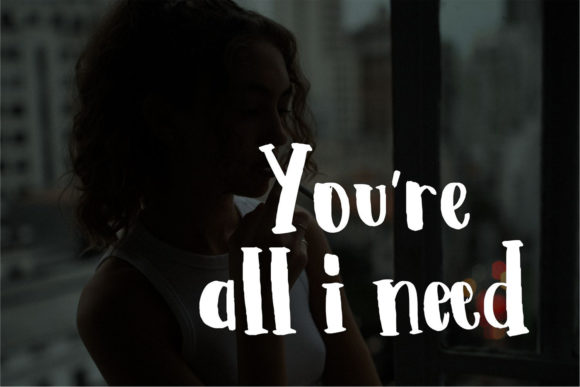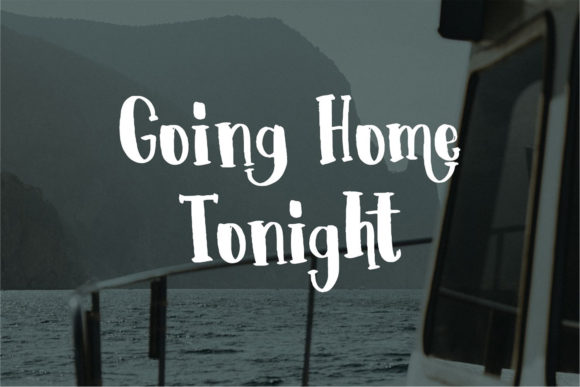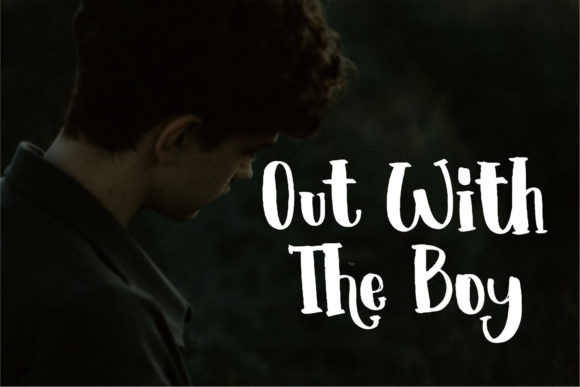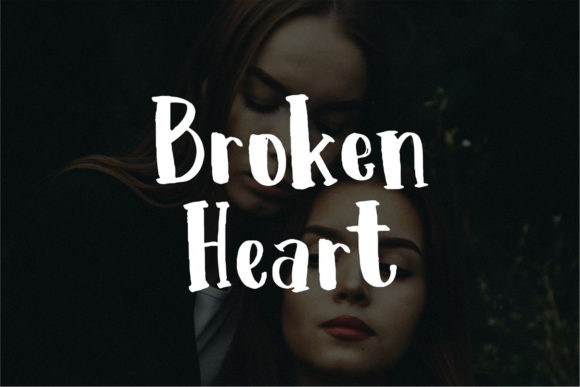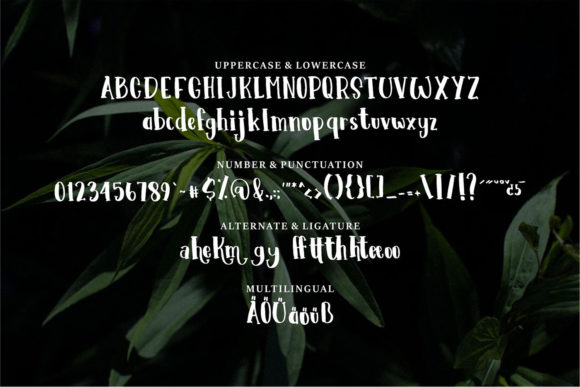
Bikest Font: Elevate Your Designs with a Magical Touch
In the world of typography, fonts play a crucial role in bringing creativity and imagination to life. Among the numerous fonts available, Bikest Font stands out for its unique and modern style, transporting your designs to a magical realm. In this article, we’ll explore the features and benefits of Bikest Font, and how it can elevate your designs to new heights.
What is Bikest Font?
Bikest Font is an incredibly cool and unique display font that boasts a modern yet whimsical style. Its distinctive design makes it perfect for adding a touch of magic to your projects. Whether you’re a designer, crafter, or artist, Bikest Font is an excellent choice for those looking to infuse their work with a dash of creativity and imagination.
Key Features of Bikest Font
- Modern yet Whimsical Style: Bikest Font’s unique design blends modernity with playfulness, making it perfect for a wide range of projects.
- Magical World of Designs: With Bikest Font, you can create designs that transport your audience to a world of wonder and enchantment.
Benefits of Using Bikest Font
Bikest Font offers numerous benefits for designers, crafters, and artists. Some of the advantages of using this font include:
- Unique Designs: With its distinctive style, Bikest Font helps you create one-of-a-kind designs that stand out from the crowd.
- Versatility: Bikest Font is suitable for a wide range of projects, from digital designs to print materials, and even craft projects.
Who Can Benefit from Bikest Font?
Bikest Font is an excellent choice for:
- Graphic Designers: Add a touch of magic to your designs and create stunning visual effects.
- Crafters: Use Bikest Font to create unique and eye-catching titles, headings, and quotes for your craft projects.
- Artists: Incorporate Bikest Font into your artwork to add an extra layer of creativity and imagination.
- Digital Content Creators: Use Bikest Font to create engaging and visually appealing digital content, such as social media graphics and blog posts.
Bikest Font is an exceptional display font that can elevate your designs to new heights. Its unique blend of modernity and whimsy, combined with its PUA encoding, makes it an excellent choice for designers, crafters, and artists. With its versatility and ease of use, Bikest Font is sure to become a go-to font in your design arsenal. So why wait? Dive into the magical world of Bikest Font and unlock a world of creative possibilities!